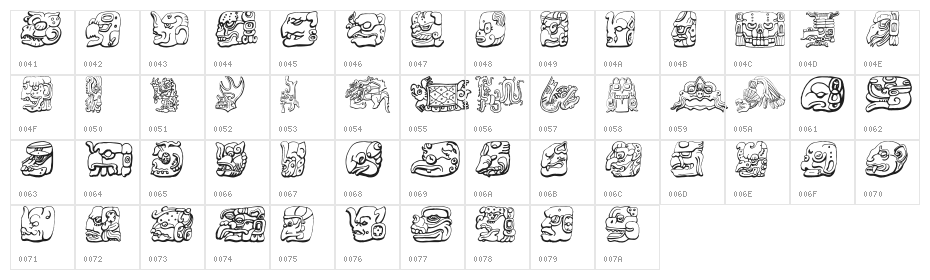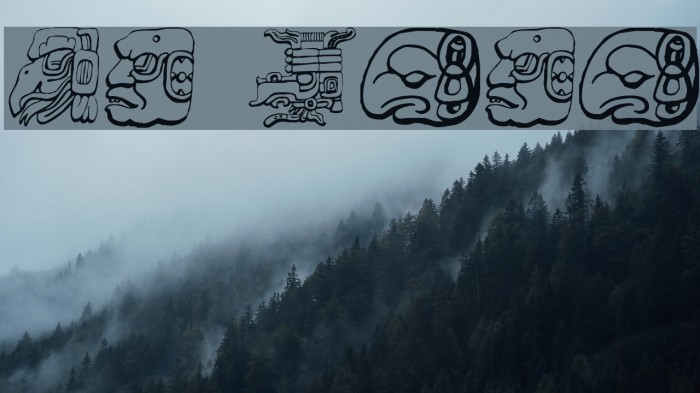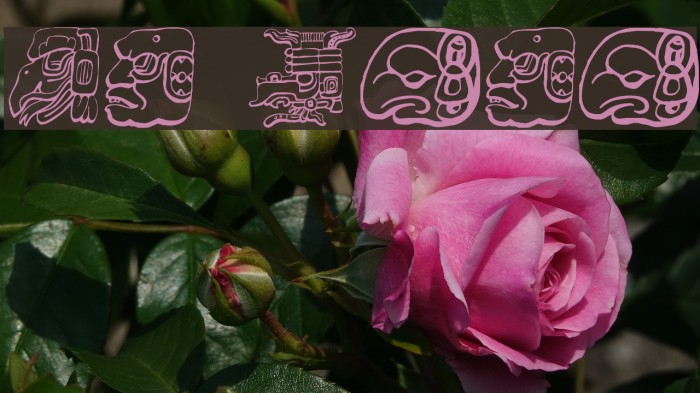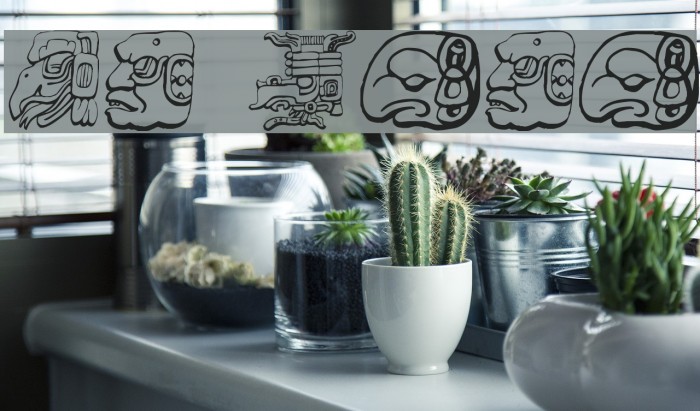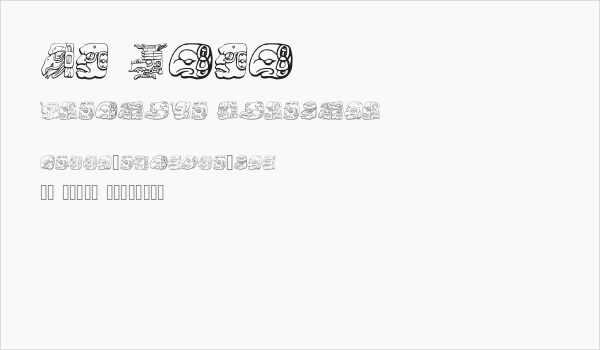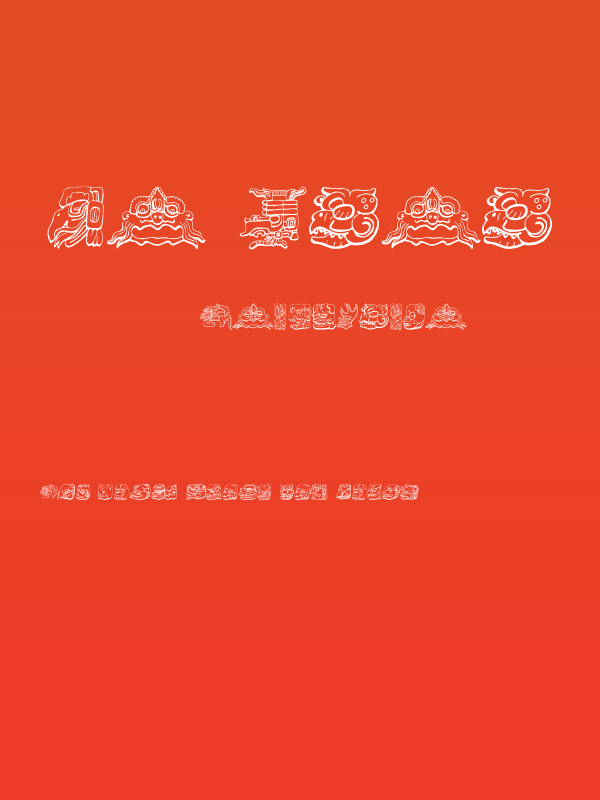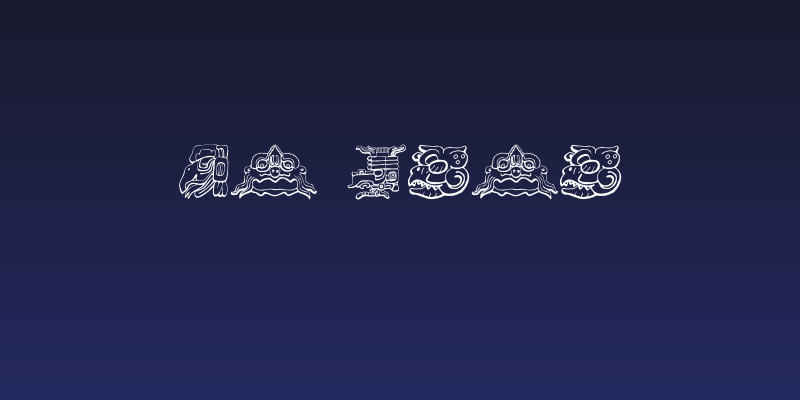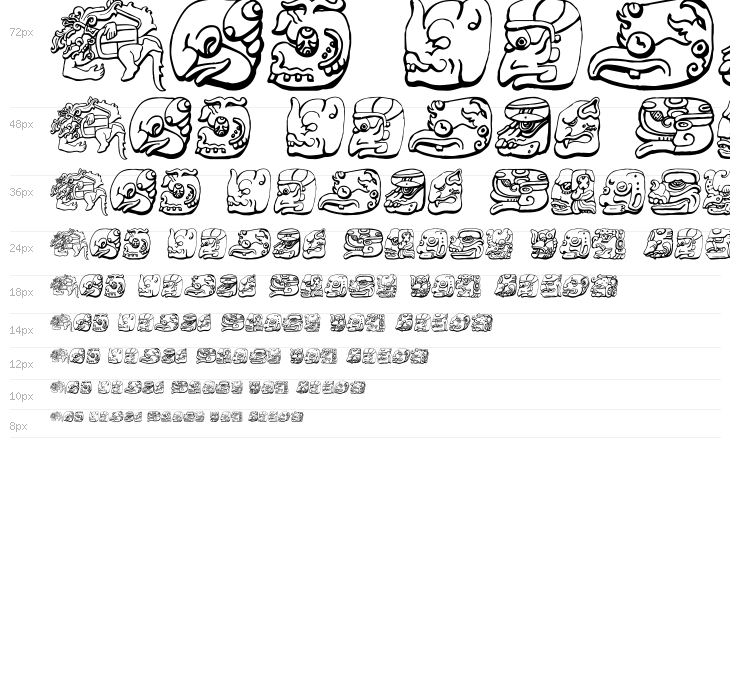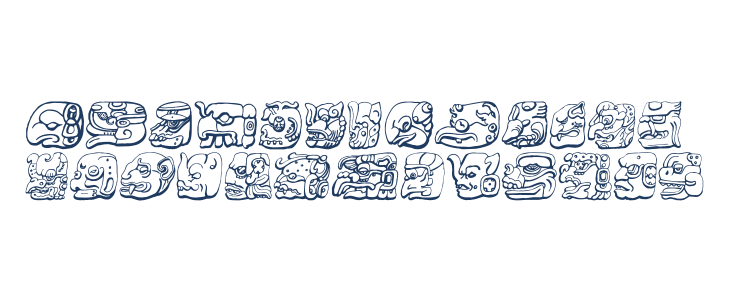
Ny Maya Font
Ny Maya Description
This font is a highly decorative and intricate design inspired by ancient Mayan glyphs. Each character is a unique piece of art, featuring complex patterns and detailed line work that resemble historical hieroglyphs. The characters are bold and visually striking, making them ideal for projects that require a strong cultural or historical theme. The font's design is not only artistic but also evokes a sense of mystery and antiquity, perfect for creative projects that aim to capture the essence of ancient civilizations.
| Proposed Projects | Ideal for cultural exhibits, historical documentaries, themed events, artistic posters, and educational materials about ancient civilizations. |